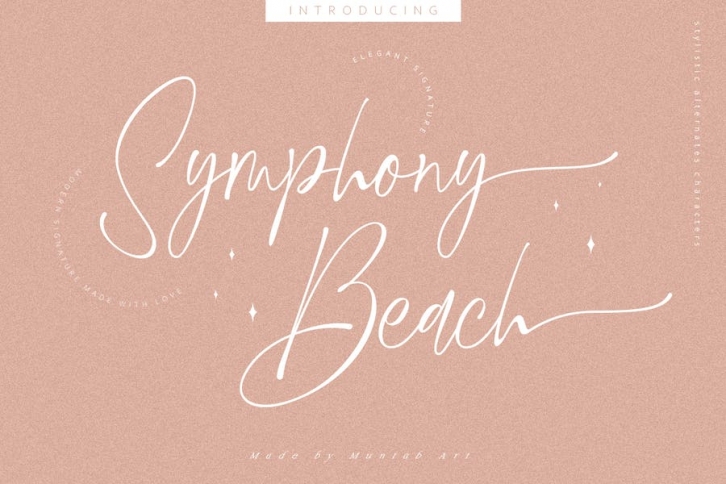
Introducing of our new product the name Symphony Beach | Modern Signature. Symphony Beach Fonts includes uppercase and lowercase letters, numerals, a large range of punctuation and ligatures. All lowercase letters include ending swashes.
FEATURES :
Uppercase Lowercase Number Punctuation Multilingual Ending Swash Opentype